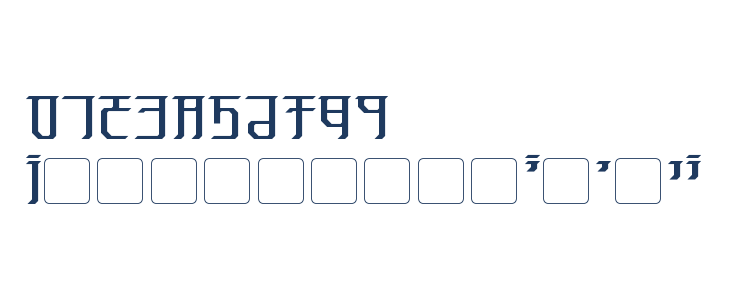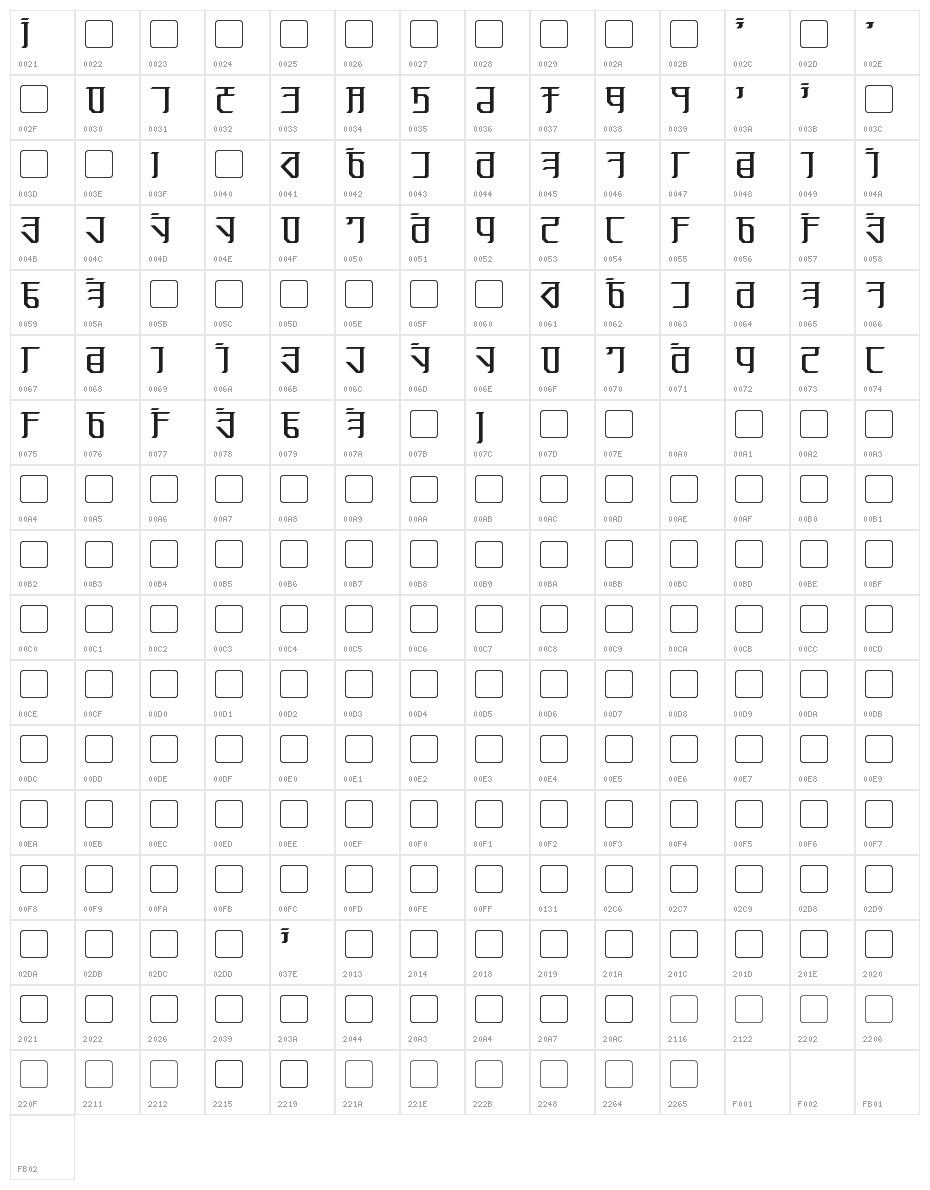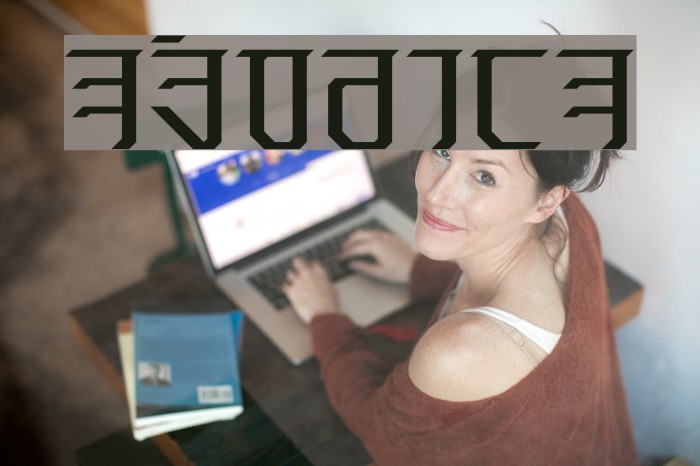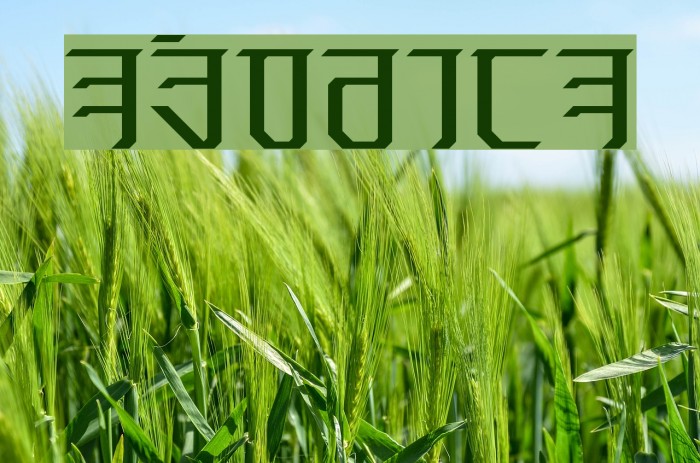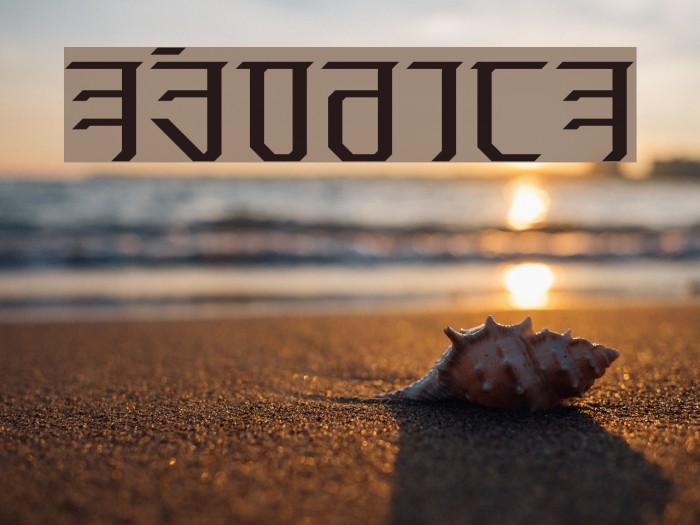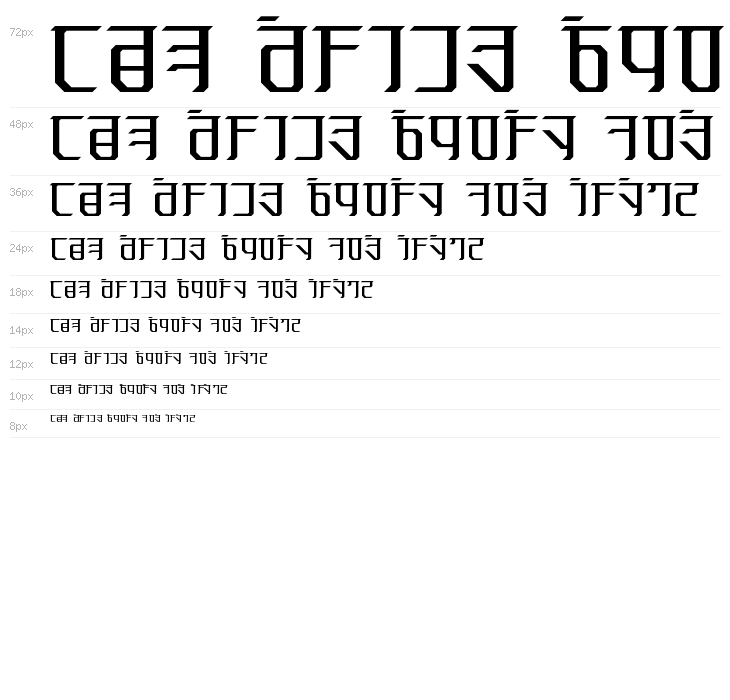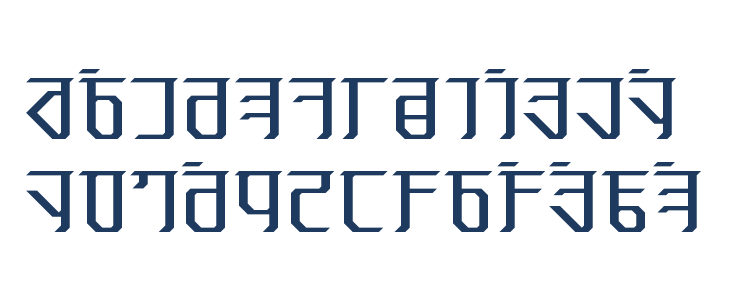
Exodite Font
Exodite Description
This font features a futuristic and angular design, characterized by sharp edges and geometric shapes. The letters are bold and have a distinct, almost alien-like appearance, with consistent line thickness throughout. The uppercase and lowercase letters share a similar style, maintaining uniformity across the alphabet. The numerals and special characters are designed to match the overall aesthetic, ensuring cohesion. This font's unique style makes it suitable for projects that require a modern and unconventional look.
| Proposed Projects | Ideal for sci-fi themed designs, video game interfaces, movie posters, and branding for tech companies. |